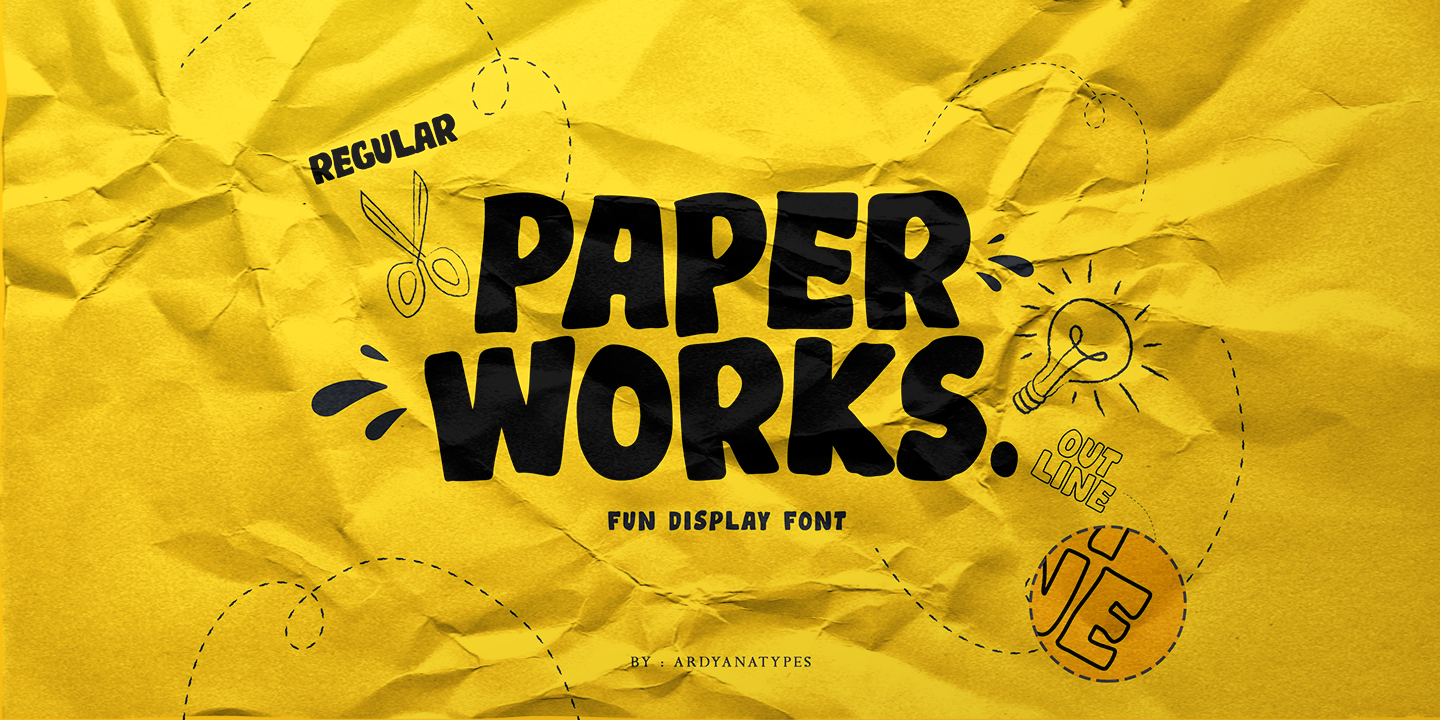
Paper Works Font is perfect for craft store branding, stationery shop signage, scrapbooking product packaging, paper art exhibitions, handmade card designs, origami studio marketing, artisan paper mill identities, and creative workshop promotions.
Paper Works Font is exciting because it captures the tactile artistry and creative potential of paper craftsmanship through its textured character design that embodies the handmade beauty of paper arts and the infinite possibilities of creative expression through folding, cutting, and designing. Its crafted styling and artistic appeal make it the perfect choice for brands that want to communicate creativity, craftsmanship, and the transformative power of paper-based artistic endeavors.
Paper Works Font family includes multiple crafted variations: Paper Works Light, Paper Works Regular, Paper Works Bold, Paper Works Cut, Paper Works Fold, and Paper Works Texture, along with paper craft decorative elements and artistic symbols, providing designers with comprehensive tools for creating authentic paper arts and crafting-themed brand experiences.
When exploring craft typography solutions, Paper Works Font Free Download stands out as the ultimate choice for designers working on paper arts and crafting projects that require genuine artisanal sophistication and creative appeal. This artistic typeface embodies the essence of paper craftsmanship while offering the versatility needed for modern craft retail marketing and creative workshop communications. The font's handmade character and crafting resonance create immediate connections with audiences who appreciate handmade artistry and creative expression.
Craft professionals consistently turn to Paper Works Font for projects requiring authentic artisanal sophistication and powerful creative appeal. Its carefully crafted letterforms feature paper-inspired influences that work exceptionally well in both large-scale craft store displays and intimate workshop instruction materials. The font's ability to convey creativity and handmade excellence while maintaining strong brand recognition makes it invaluable for comprehensive identity systems in the craft retail, art education, and creative workshop sectors.
Whether you're developing craft store identities, creating paper arts marketing materials, or designing creative workshop promotions, Paper Works Font delivers the authentic artisanal character and creative appeal that resonates with audiences who cherish handmade craftsmanship and paper-based artistic expression. Its crafted significance and artistic design ensure your projects capture the beautiful potential of paper artistry while maintaining contemporary professional standards that attract modern crafters and creative expression enthusiasts.